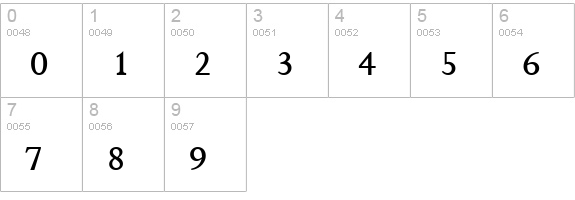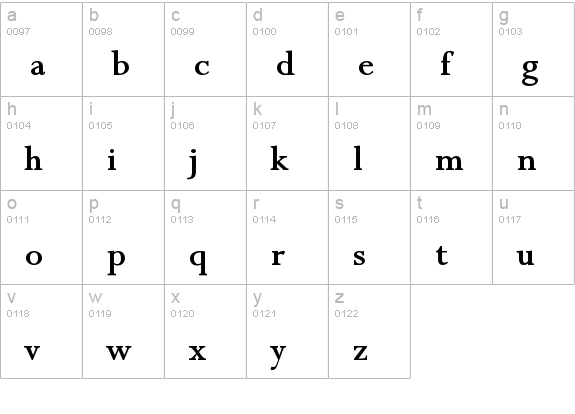
Rapid Bold is a strong, high-contrast variant in the Rapid typeface family \xE2\x80\x94 well suited to headlines, attention-grabbing titles, and strong calls-to-action.
Introducing Rapid Bold, a font that exudes confidence and speed. With its bold and powerful strokes, this typeface commands attention and leaves a lasting impression. Rapid Bold is the perfect choice for designs that demand impact, whether it's for headlines, posters, or branding materials. This versatile font is not only visually striking but also highly legible, ensuring that your message is conveyed with clarity and precision. Its clean and sharp lines give it a modern edge, making it suitable for a wide range of design projects. One of the best things about Rapid Bold is that it is available for free. Yes, you read that right! This incredible font can be freely downloaded at FontsMarket.com, where you can explore a vast collection of fonts that cater to your creative needs. So why wait? Don't miss out on the opportunity to elevate your designs with Rapid Bold. Download it for free today at FontsMarket.com and unleash the power of this remarkable font.